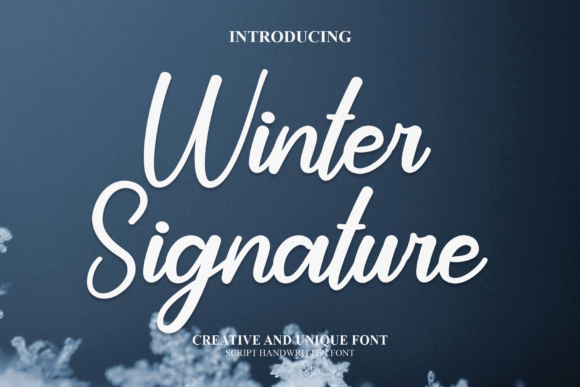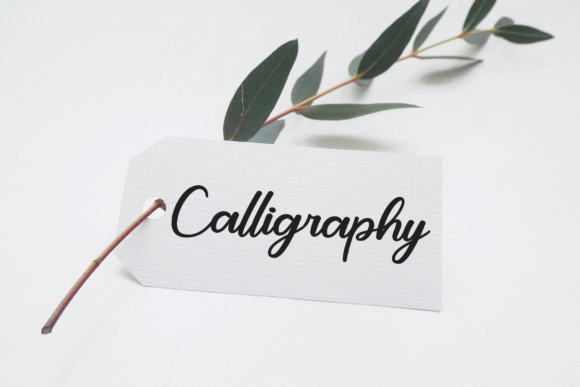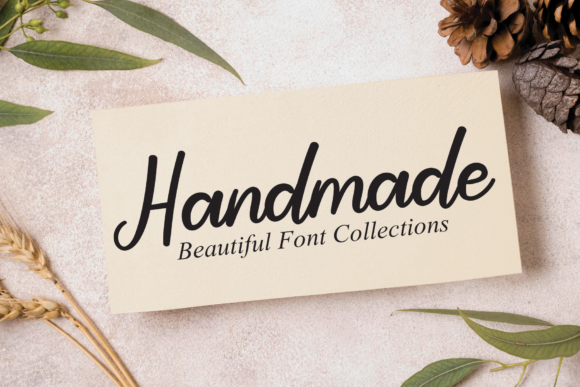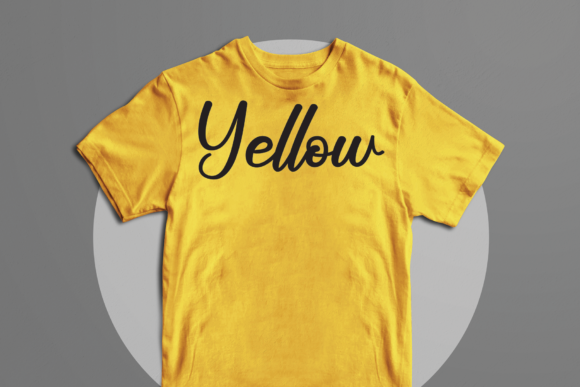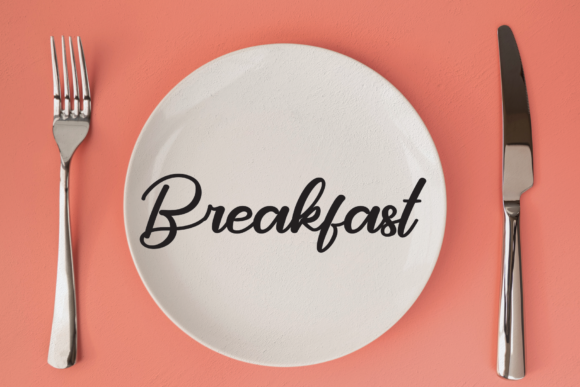
Winter Signature Font
About Winter Signature Font
Winter Signature is a handwritten font that exudes beauty and fluidity. Its unique style makes it a perfect choice for a variety of applications. Whether it’s for wall hangings, wedding invitations, social media post logos, advertising, product packaging, product design, labels, photography, watermarks, invitations, stationery, or any other design that requires impressive typography, Winter Signature is sure to impress.
The charm of Winter Signature lies in its ability to add a personal and intimate feel to any design. Its beautiful and flowing style can bring a sense of elegance and sophistication to your designs, making them more engaging and appealing to the audience.
In conclusion, Winter Signature is more than just a font. It’s a design tool that can add a touch of beauty and fluidity to your designs. Its unique style and versatility make it a valuable asset for any designer. So, why wait? Incorporate Winter Signature into your design today and witness the transformation. Experience the difference that a truly beautiful and flowing font can make. Experience Winter Signature.
With Winter Signature, you’re not just choosing a font. You’re choosing a font that will make your design stand out, a font that will add character to your text, and a font that will leave a lasting impression on your audience. Choose Winter Signature, and let your design speak for itself.
So, if you’re looking for a font that’s beautiful, flowing, and has aesthetic value, look no further than Winter Signature. It’s the perfect font for any design project, and it’s sure to make your design stand out. Try Winter Signature today, and see the difference it can make in your design.